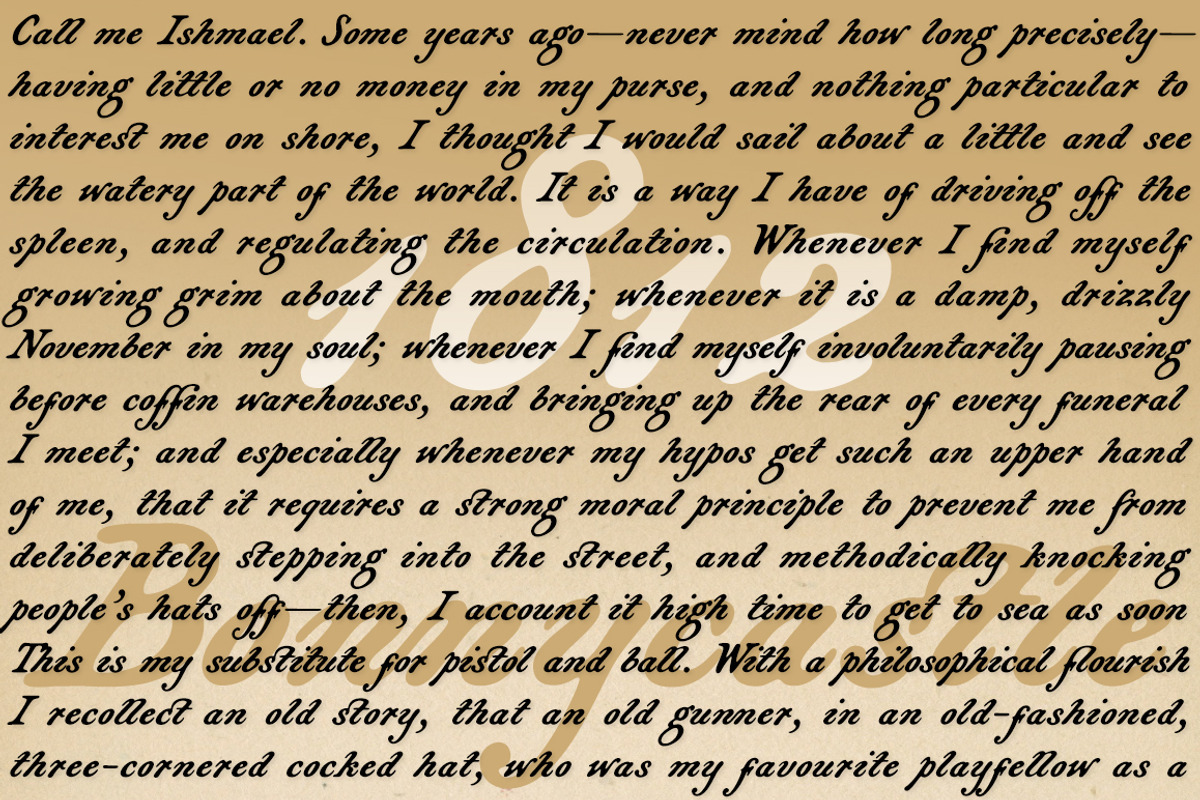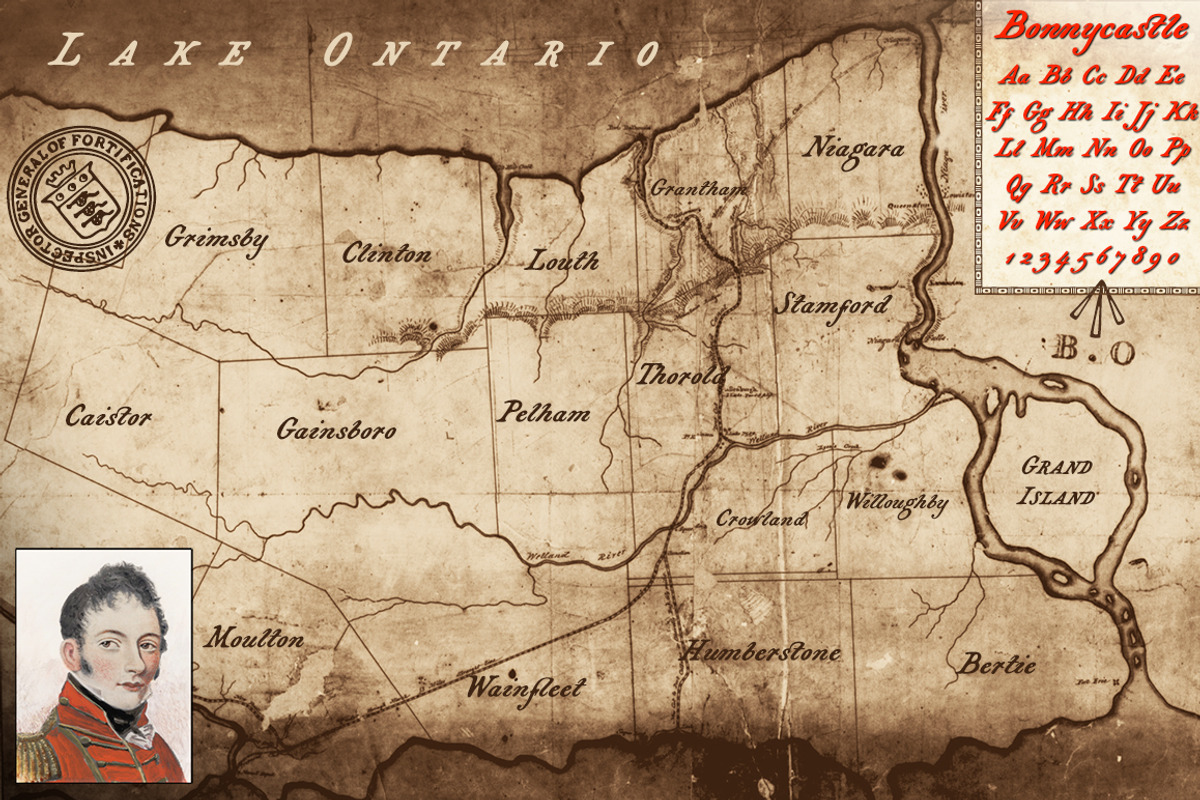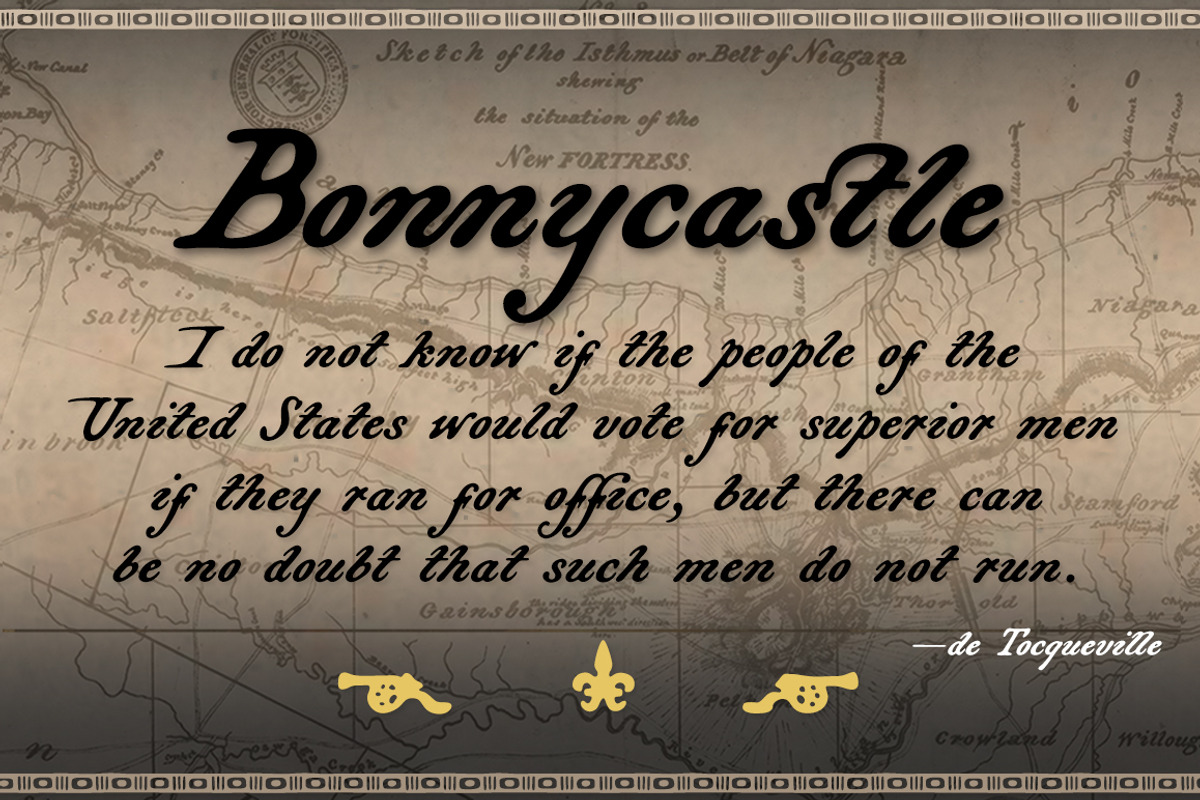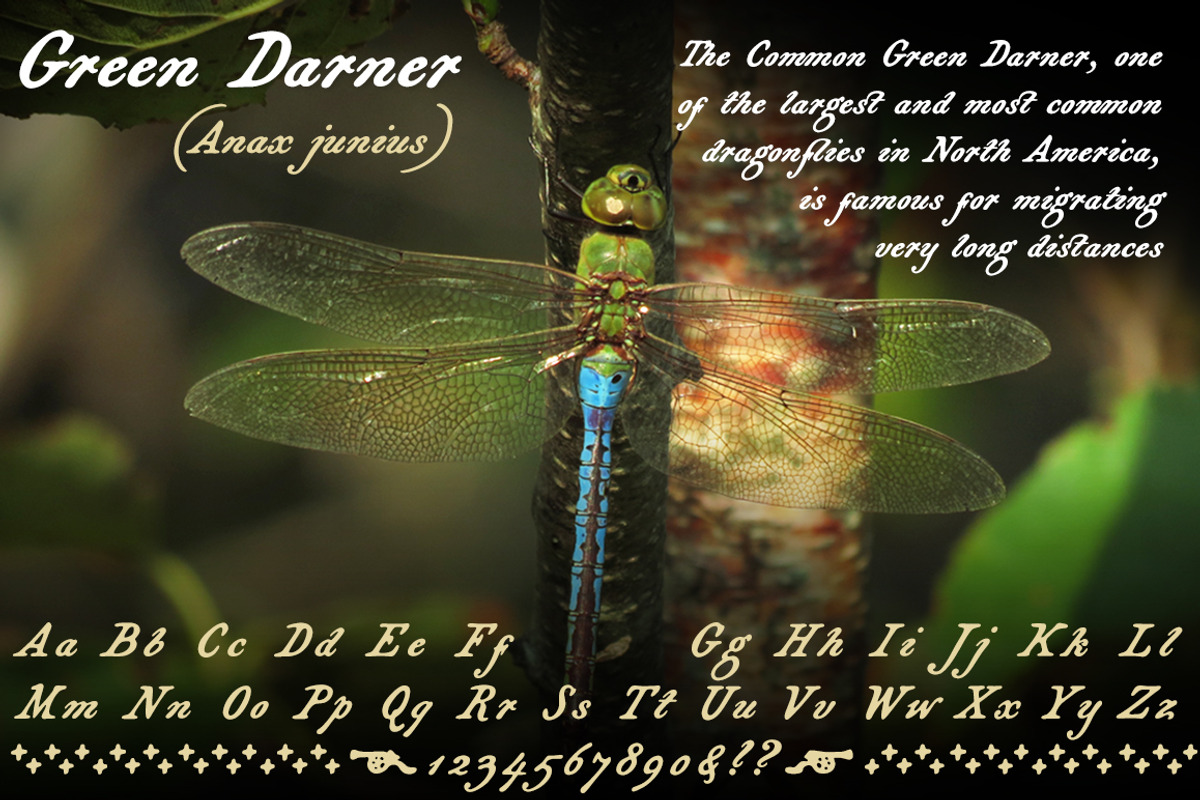
Bonnycastle, a vintage titling font
Bonnycastle, a vintage titling font by Three Islands Press is a font selected for branding, posters, packaging, typography.
- Has more than 1,100 glyphs, including small caps, alternate alphabets, numerous ligatures, and cartographic ornaments.
Why Bonnycastle, a vintage titling font is worth a look
Bonnycastle, a vintage titling font by Three Islands Press fits naturally into Branding, posters, packaging, typography.